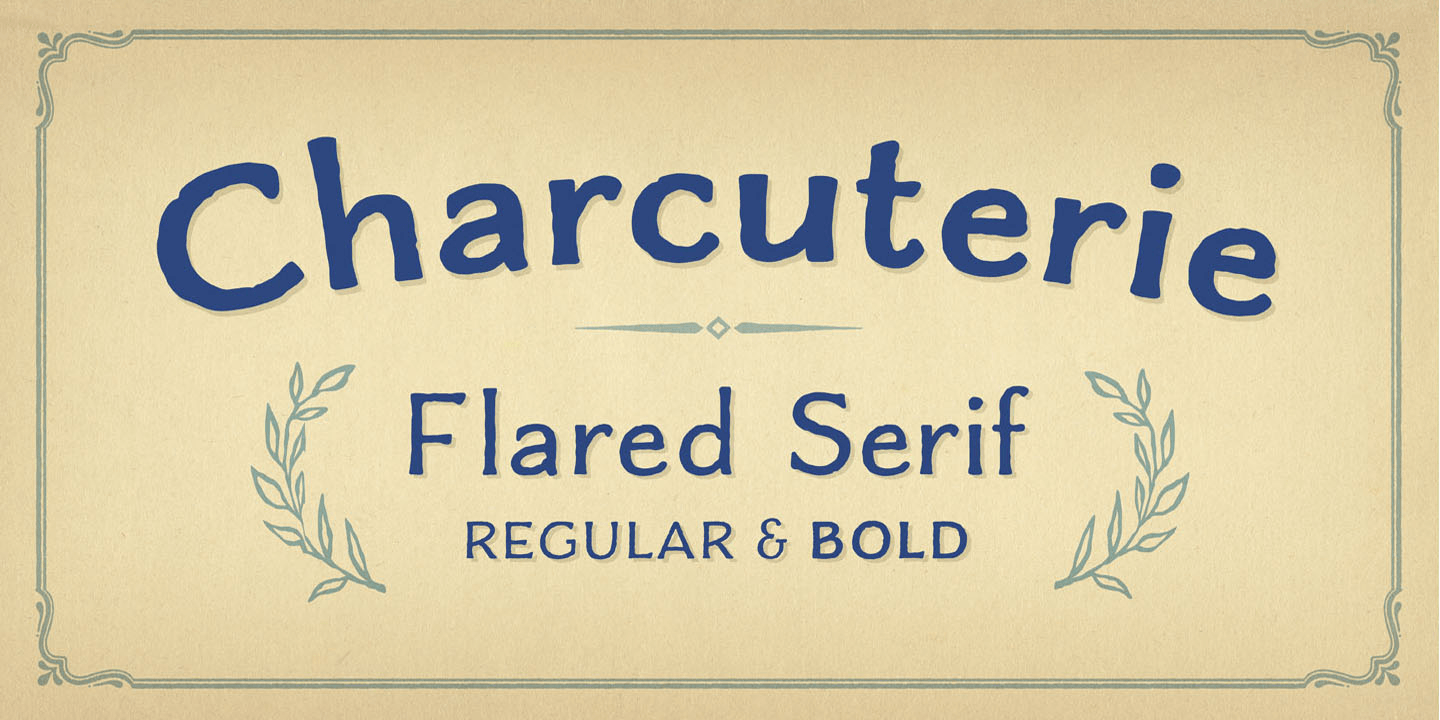
Charcuterie Flared
Charcuterie Flared is a hand display font family. This typeface has two styles and was published by Laura Worthington.
Their humble fare is used by bistro chefs to create masterpieces by ever so slightly transforming the simple into the sumptuous.
A large and rare undertaking, Charcuterie is a family of ten distinct yet related typefaces, many of which have their own font families, and three decorative/ornamental typefaces.
While most of the Charcuterie typefaces are outfitted with a standard character set, Charcuterie Engraved features 135 swash alternates and Charcuterie Cursive boasts 275.
Charcuterie Frames offers a broad and endless approach to creating frames of any width, height and style.
Featuring 60 corner elements and 20 top, bottom and side pieces along with a detailed User’s Guide on how to construct the frames.
Charcuterie Catchwords features nine different styles for a total of 82 glyphs.
Charcuterie Ornaments is very practical and features 100 glyphs a vast array of arrows, brackets, rules, icons, ribbons and more.
This ambitious, yet accessible, set offers a virtually endless series of combinations, allowing each designer to form a tasty platter of ingredients, one that is uniquely theirs, for each project.
A large and rare undertaking, Charcuterie is a family of ten distinct yet related typefaces, many of which have their own font families, and three decorative/ornamental typefaces.
Shown here, is Charcuterie Flared. Be sure to take a look at the other offerings within the Charcuterie Family: